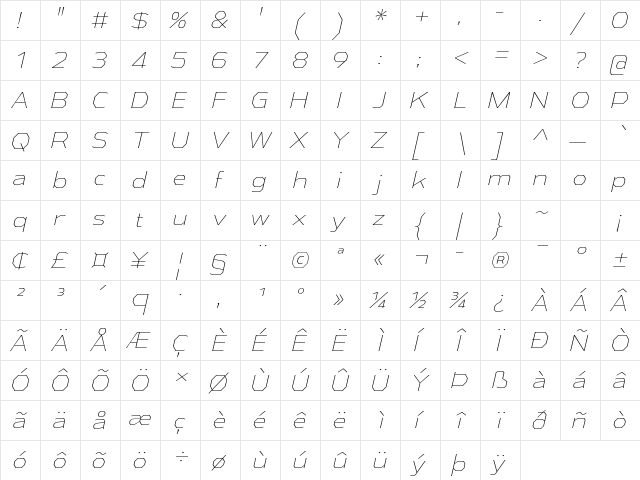
Athabasca ExtraLight Italic Font Preview
Athabasca ExtraLight Italic
Athabasca ExtraLight Italic Font Details
| Style | ExtraLight Italic |
Design Context for Athabasca Typeface
Athabasca offers clean, dependable letterforms without strong stylistic allegiance, making it a practical choice for designers who need flexibility. Its italic angle brings a sense of urgency and motion to the letterforms. The delicate stroke weight brings airiness and refinement to layouts.
Pro Tip: Use Athabasca for emphasis, pull quotes, and subheadings where its slanted energy can add rhythm to the layout.